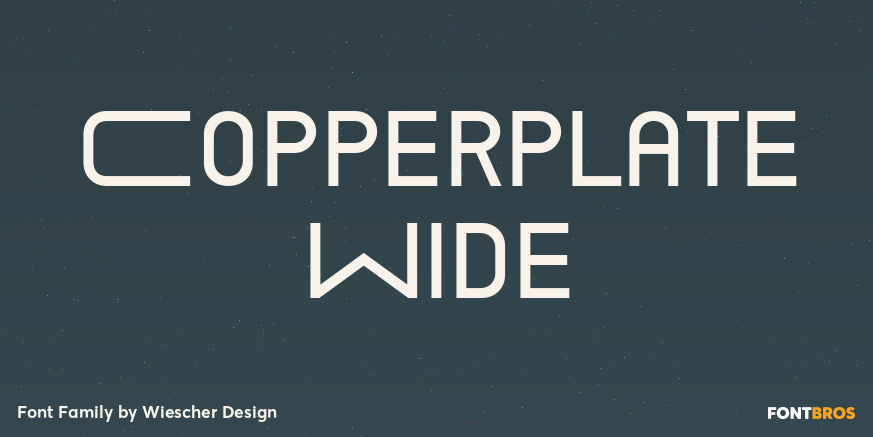
Copperplate Wide
About Copperplate Wide
Copperplate Wide is remotely based on the traditional Copperplate typeface that can be seen on many business cards. I have completely redrawn the typeface in a much wider version and without those stubby little serifs. In the place of the lowercase letters…